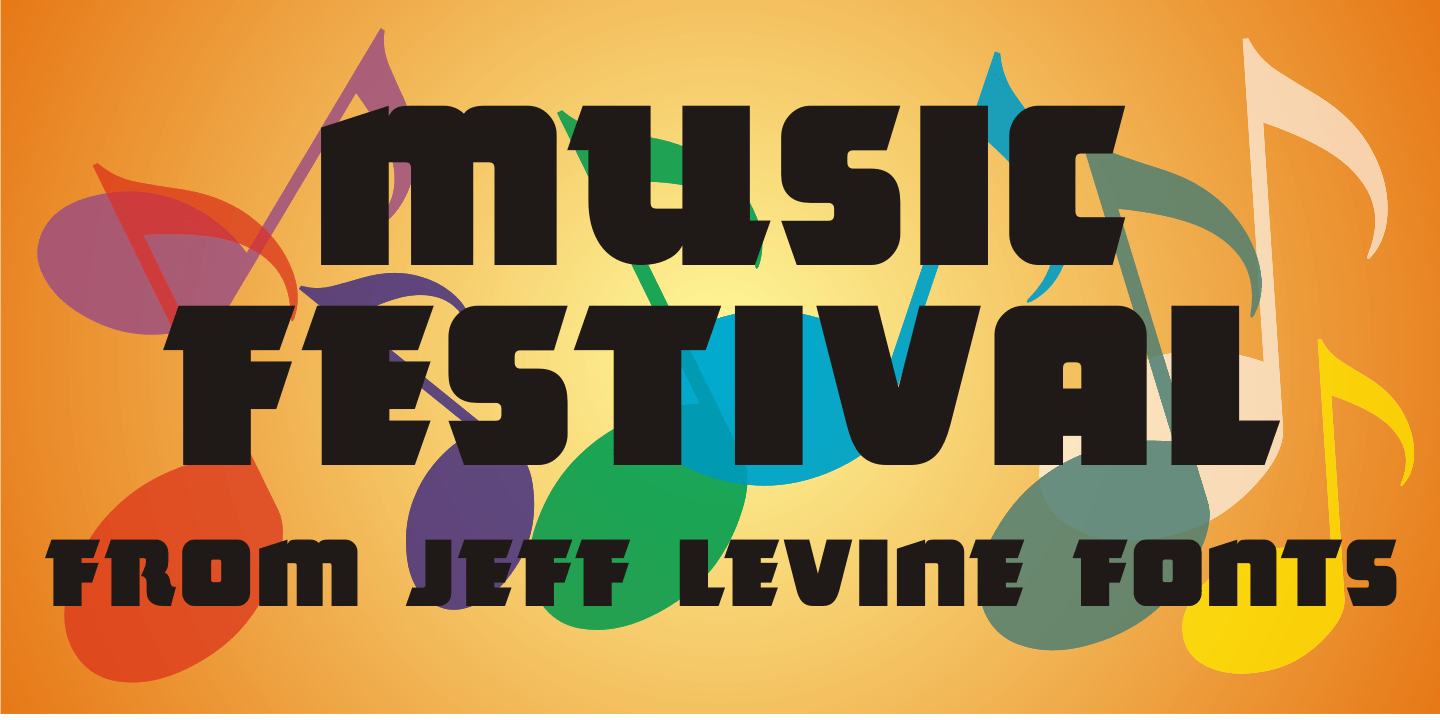
Music Festival
The Federal Music Project was part of Franklin D. Roosevelt's WPA (Works Progress Administration), putting many people back to work in the Depression years of the 1930s.
A hand-lettered poster advertising an 'American Music Festival” featuring the Bridgeport Symphony Orchestra offered up the extra bold Art Deco inspiration which became Music Festival JNL
Music Festival JNL Regular by Jeff Levine Fonts